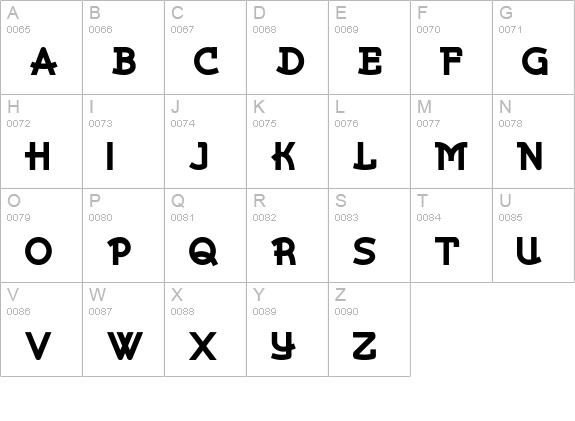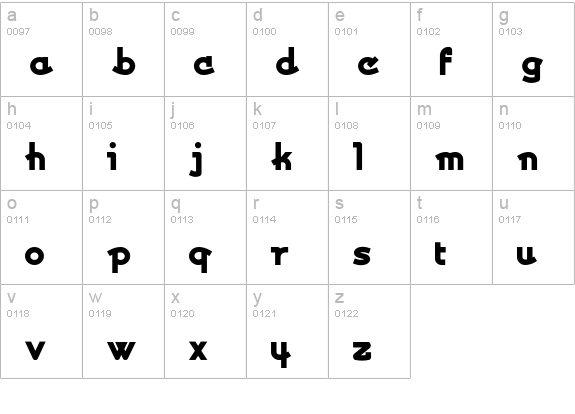
Kurvaceous Font Details
Introducing Kurvaceous font, a stunning and elegant typeface that effortlessly combines modern curves with a touch of sophistication. This font is perfect for adding a stylish and unique flair to any design project, whether it's for branding, packaging, posters, or social media graphics. Kurvaceous features smooth lines and intricate details that create a sense of luxury and refinement. Its versatile design makes it suitable for a wide range of applications, from logos to headlines to body text. And the best part? Kurvaceous is available for free download at FontsMarket.com. So go ahead and elevate your designs with this beautiful and eye-catching font today!